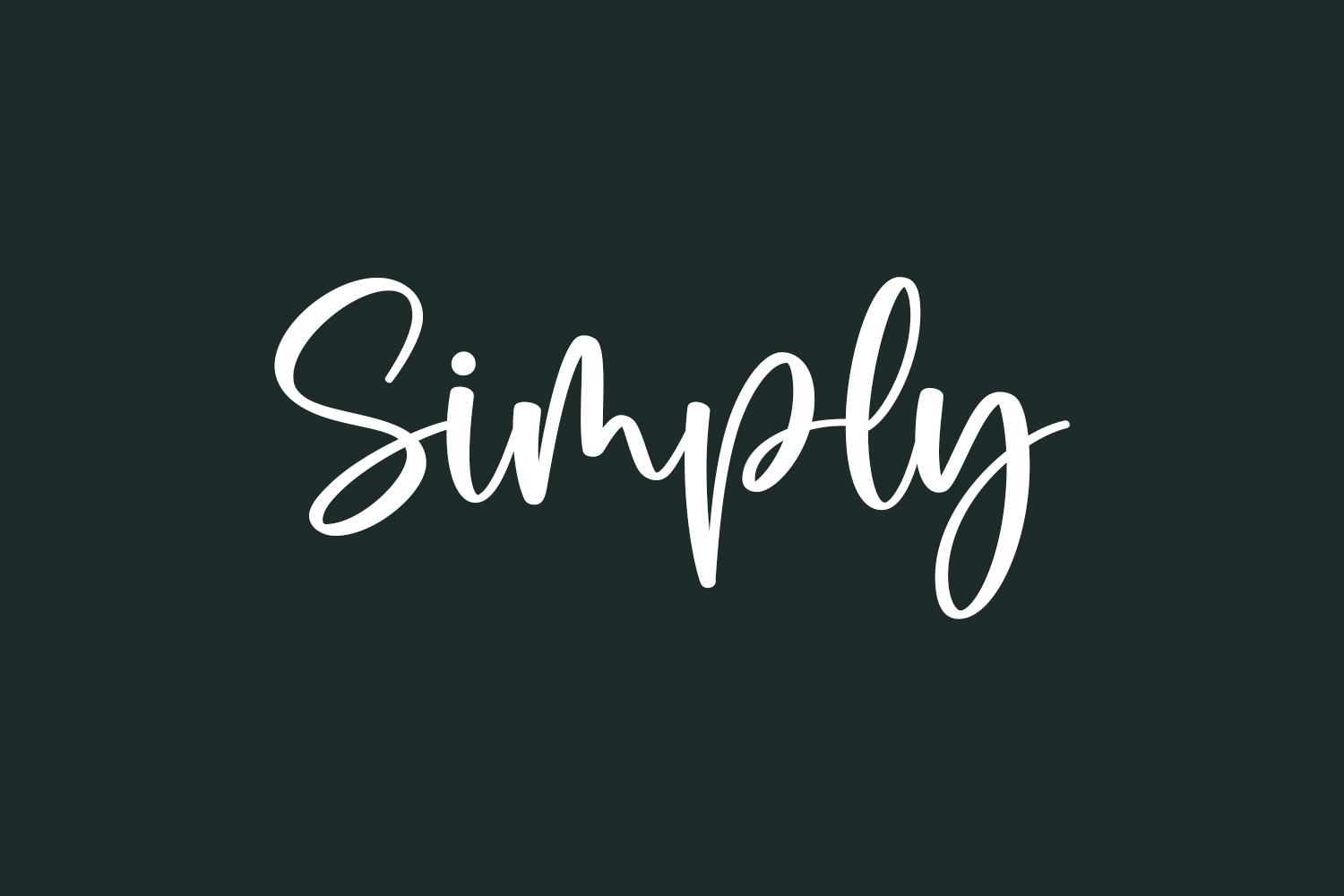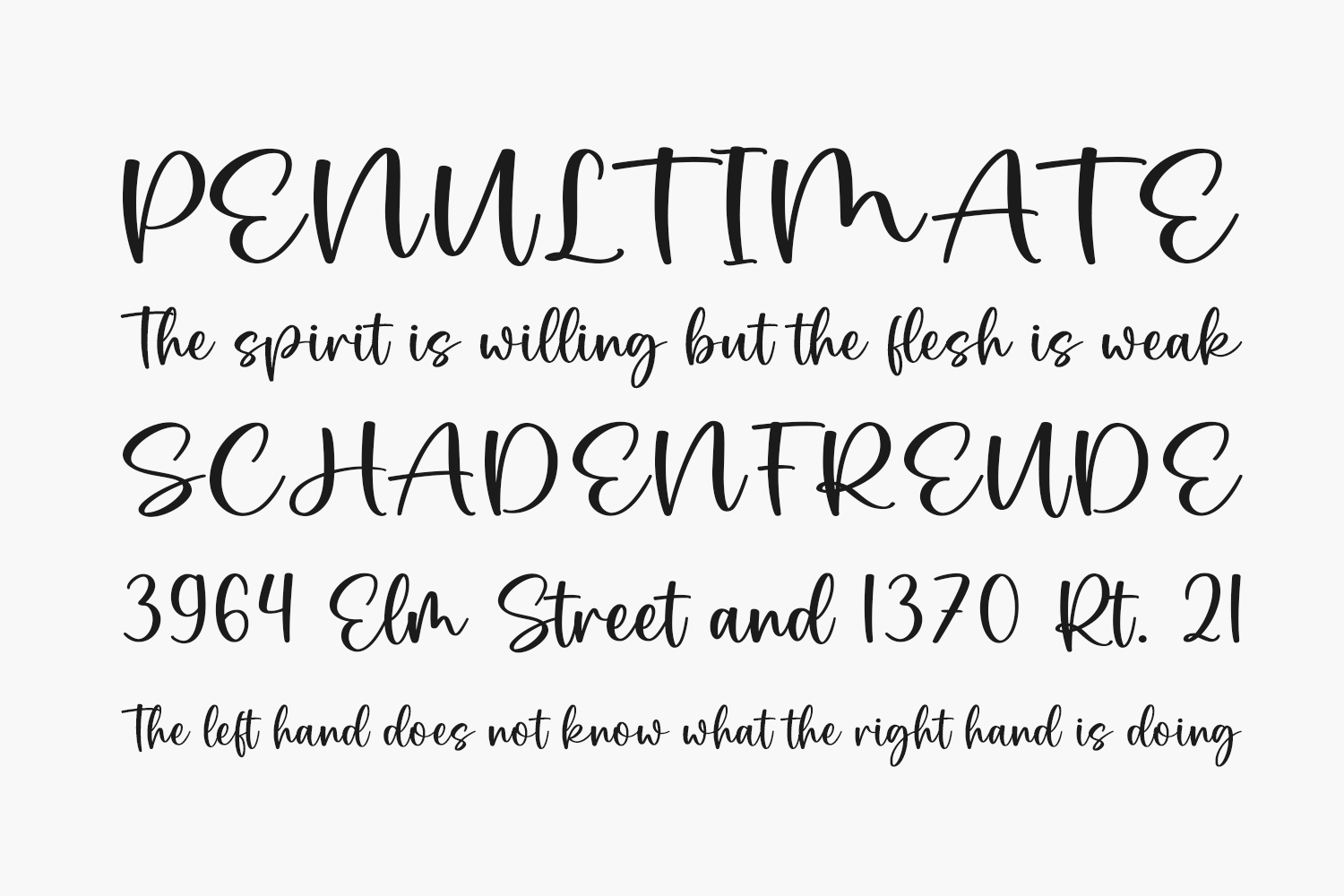
Simply Free Font comprises a harmonious duo of fonts meticulously crafted to enhance each other seamlessly. Whether used together or individually, these fonts are the perfect choice for infusing a stylish and joyful flair into your creative projects. Simply Free Font is free for personal use only. Please purchase the full version for commercial use.